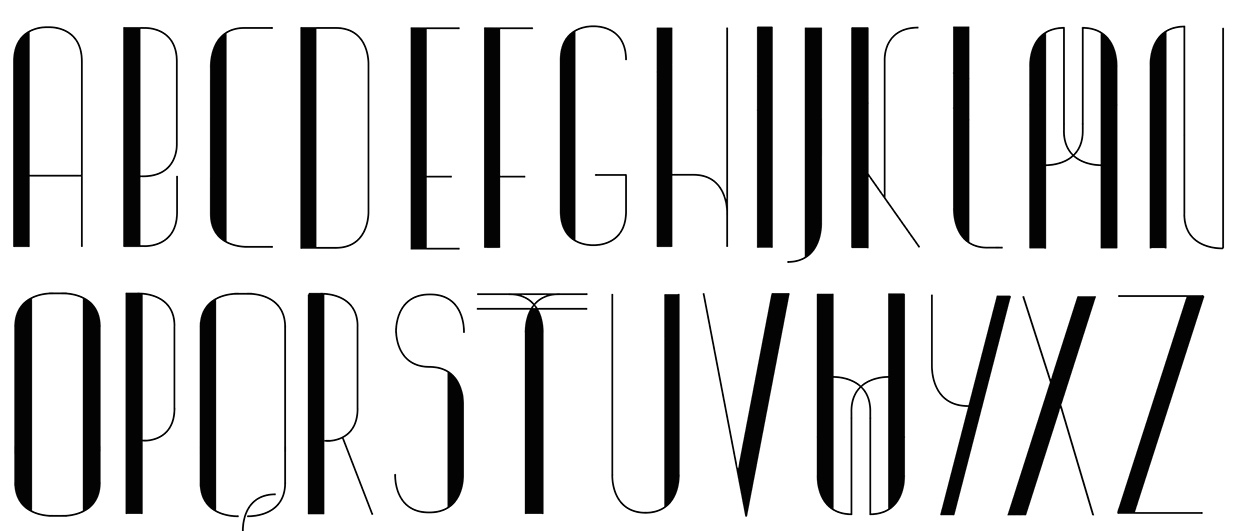
Nilo Brubicinho
Nilo Brubicinho is the alias of a Brazilain designer, who, during his studies in Rio de Janeiro in 2015, created a condensed deco font. |